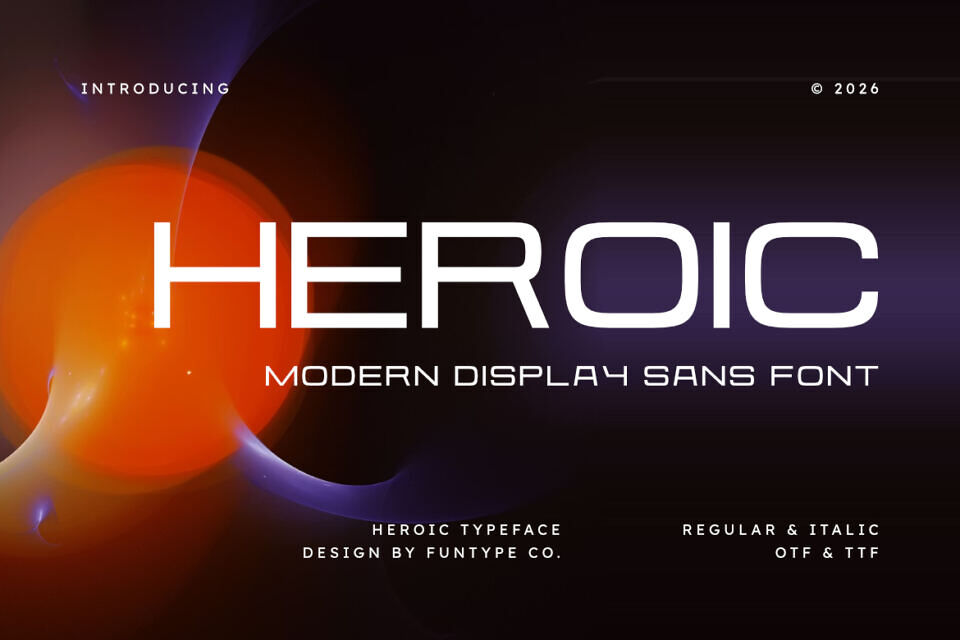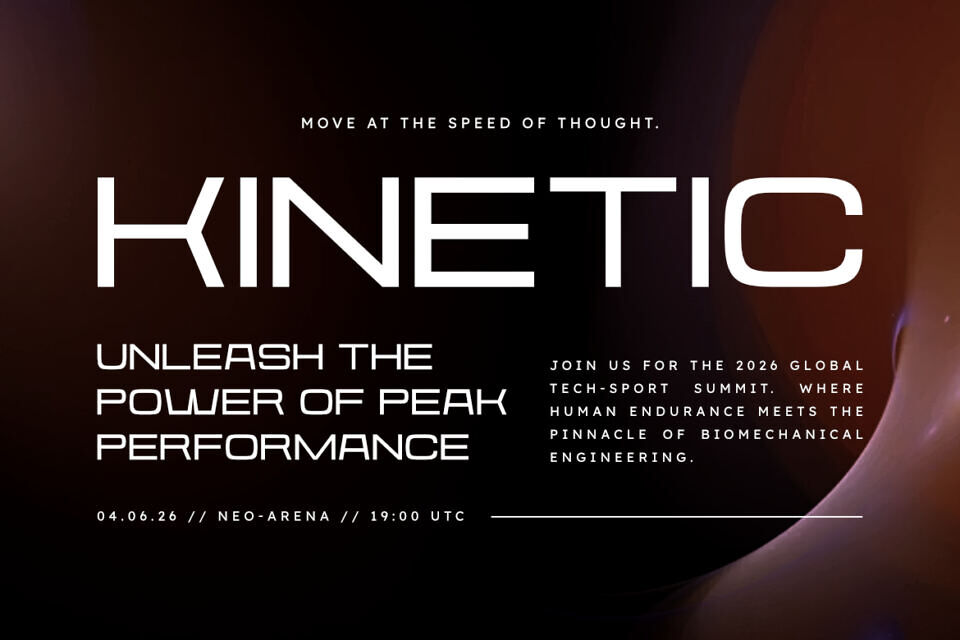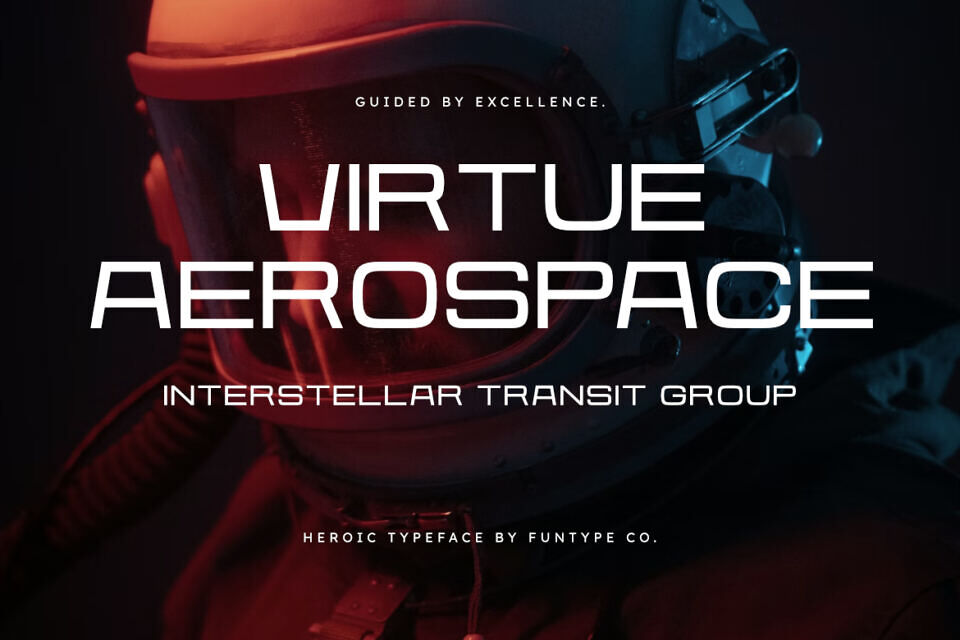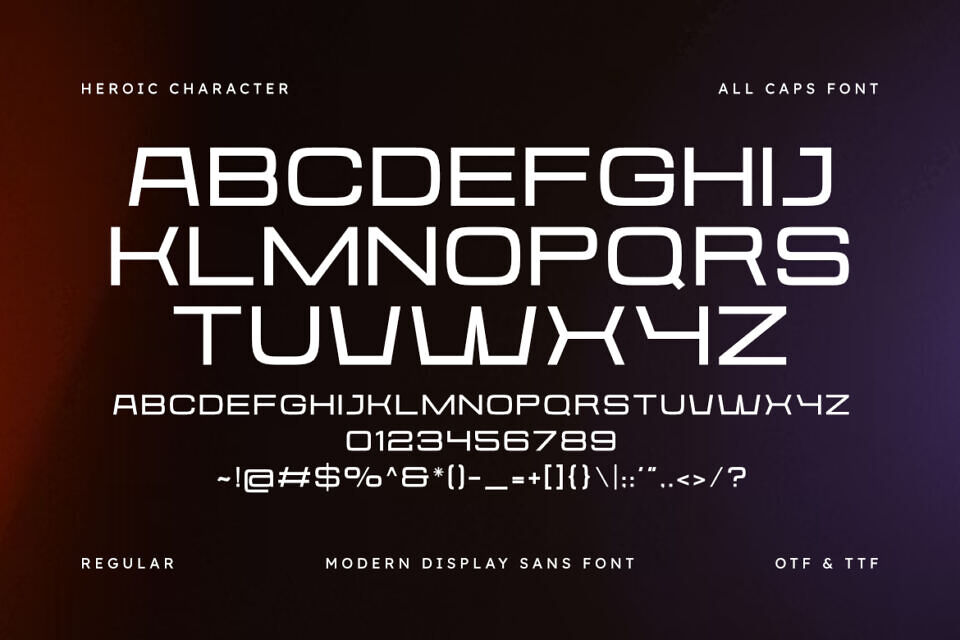
Heroic Font
Heroic is a sophisticated and powerful modern display sans font, thoughtfully designed to capture the essence of contemporary innovation and bold storytelling. With its wide, geometric structure and clean lines, Heroic offers a professional aesthetic that brings a touch of futuristic grace to any creative project.
Whether you are crafting sleek technology branding, a modern cinematic logo, or impactful editorial layouts, Heroic provides a seamless blend of contemporary flair and timeless strength.